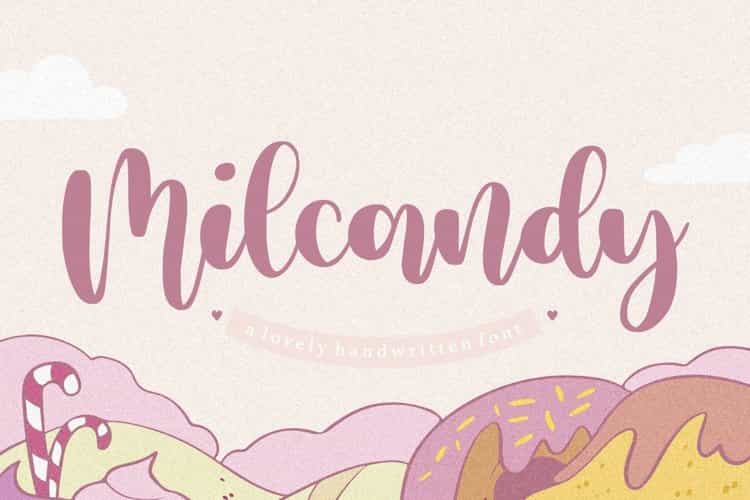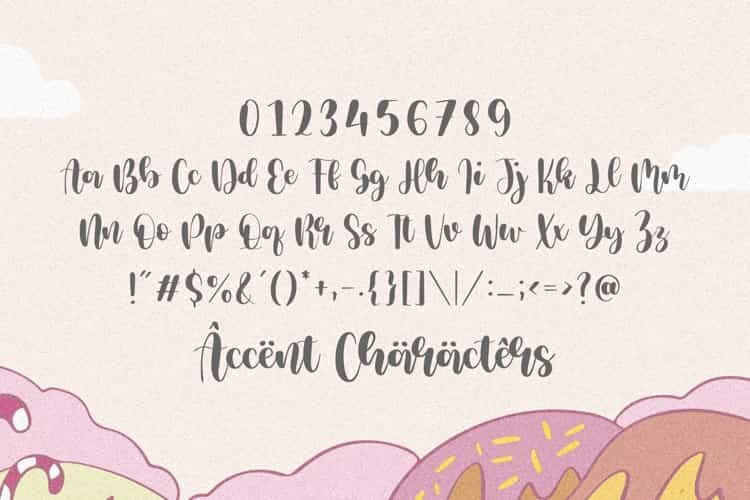
Discover Milcandy Lovely Handwritten Font, part of the Handwritten Script collection—a versatile and unique font perfect for adding a personal touch to your projects. Download it for free and enjoy crafting designs with style, from invitations to social media posts. This font is available exclusively for personal use, giving you the freedom to create without limits. Unlock your creativity with Milcandy Lovely Handwritten Font today!
Milcandy is a beautiful script typeface since the font is very large width across every letter. This makes it possible to use fonts for use in any media or object. This font is ideal to be used in the logotype or branding because it’s stylish and could also be a part of packaging such as quotes, watermarks wedding invitations, business cards all things that is related to advertising, and more.